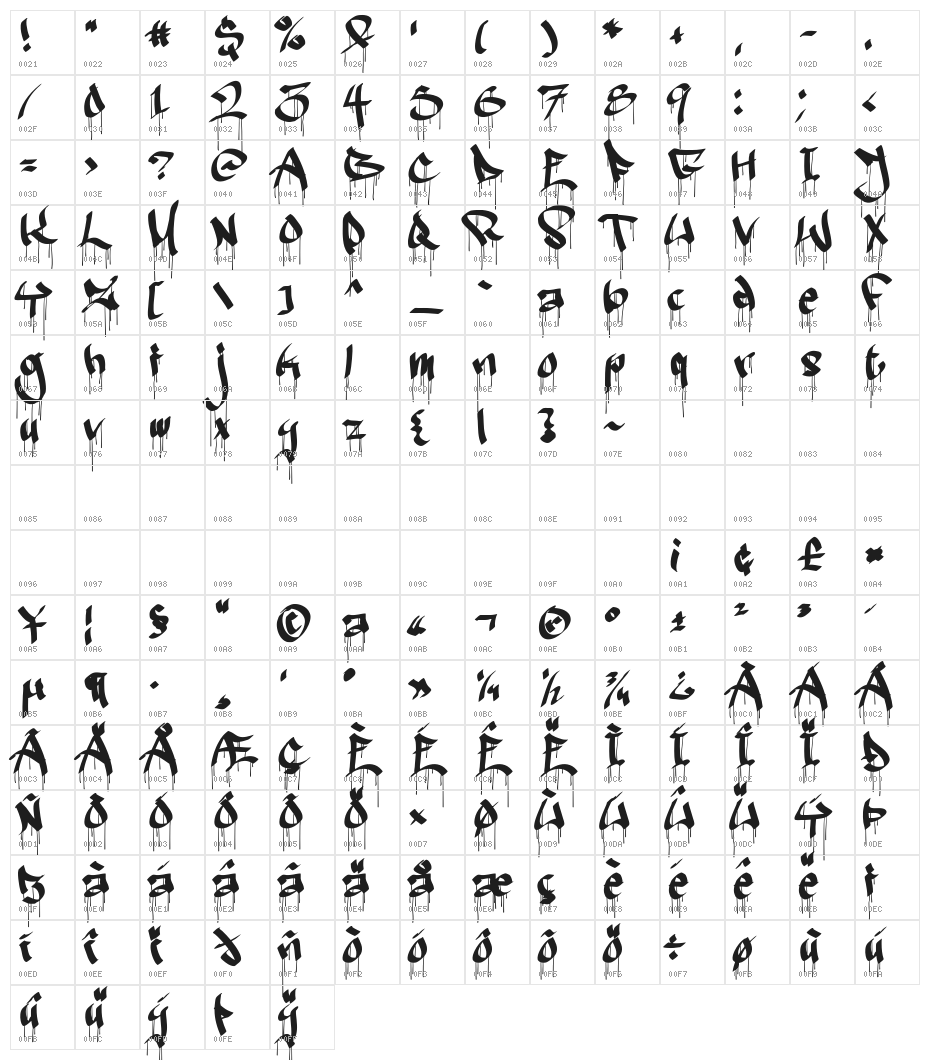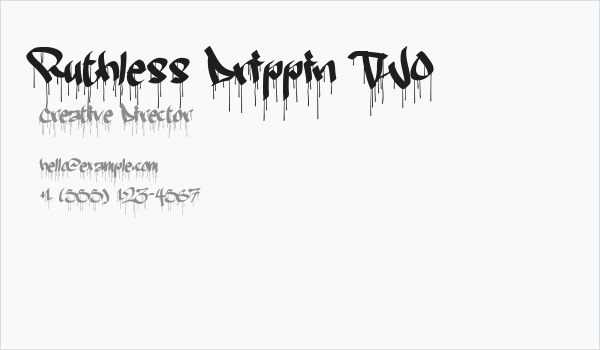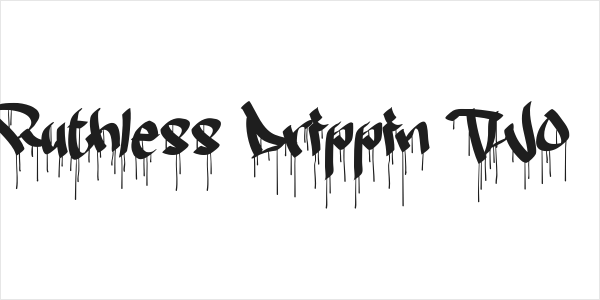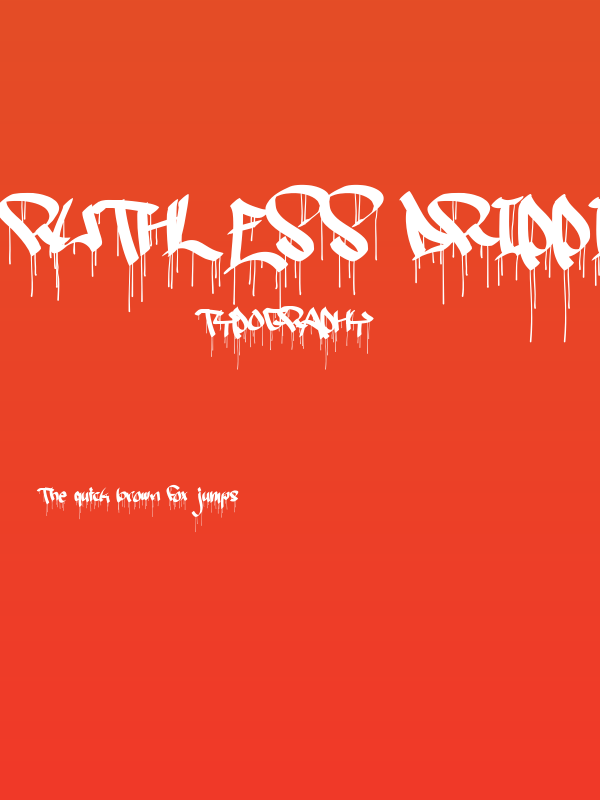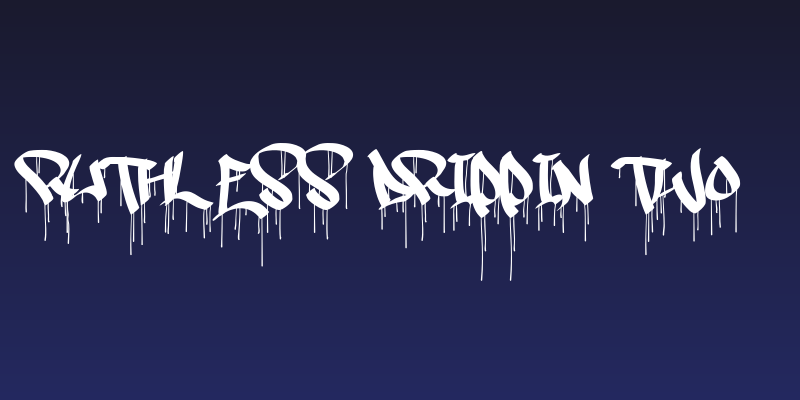
Ruthless Drippin TWO Font
Ruthless Drippin TWO Description
This font exudes a bold and rebellious spirit, characterized by its dripping, graffiti-inspired design. Each letter appears as if it has been spray-painted on a wall, with ink running down to create a dynamic and edgy effect. The uppercase and lowercase letters maintain a consistent style, with sharp angles and fluid curves that mimic the strokes of a spray can. Numbers and special characters follow the same aesthetic, ensuring a cohesive look across all text. The font's unique style makes it stand out, capturing attention with its urban and artistic flair.
| Overall Style | Urban, Edgy, Artistic |
| Use Case | Logos, Posters, Album Covers |
| Proposed Projects | Ideal for street art projects, urban-themed designs, music album covers, and edgy branding. |